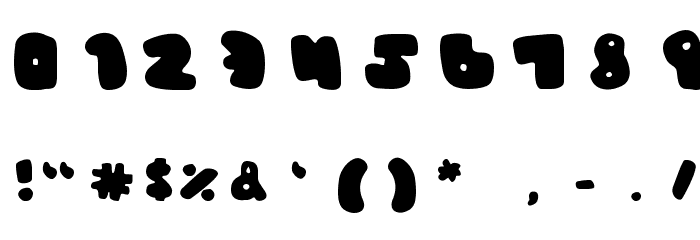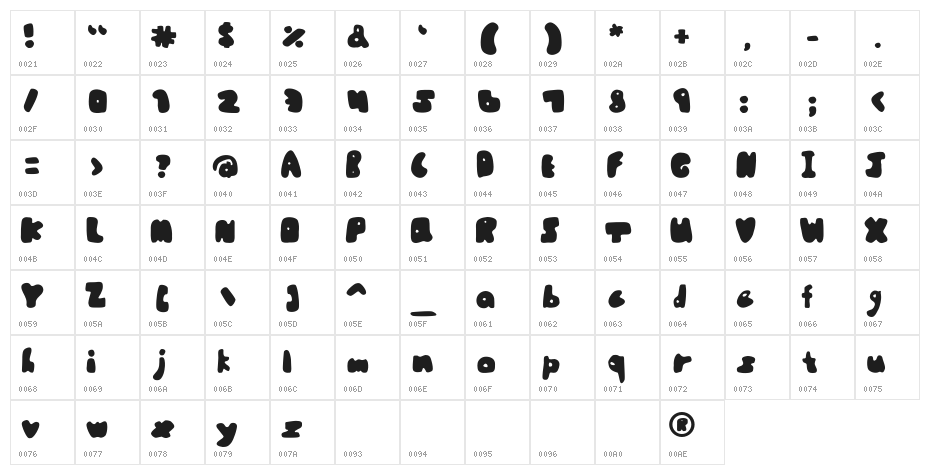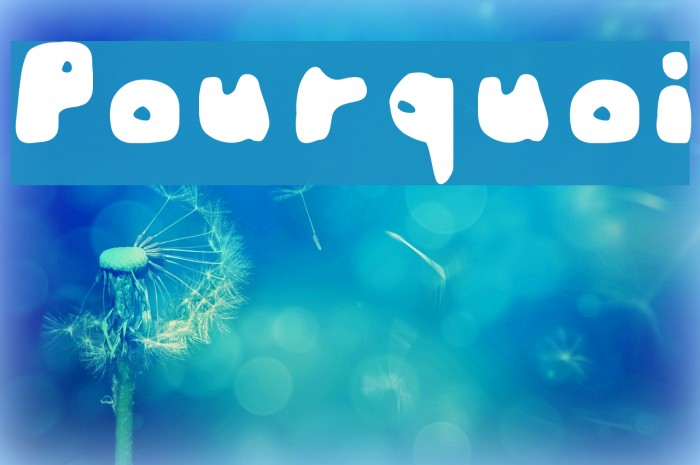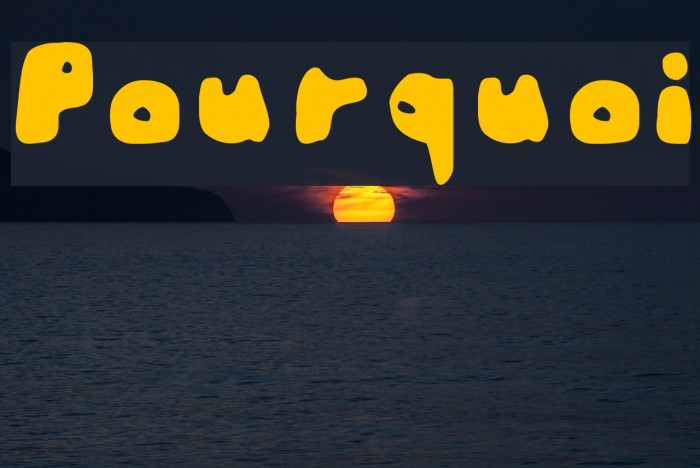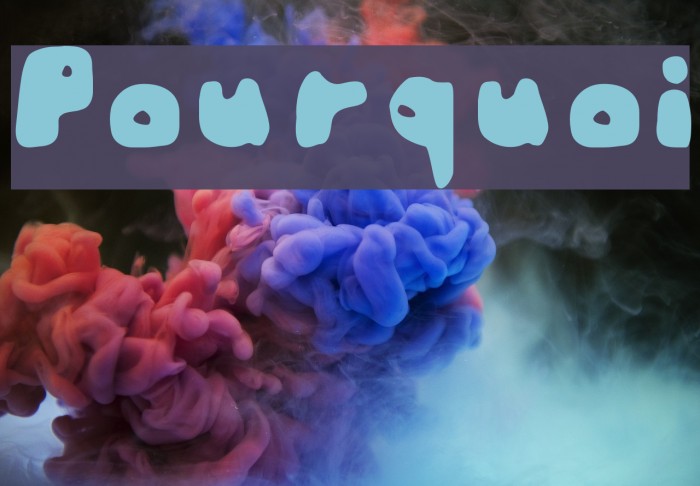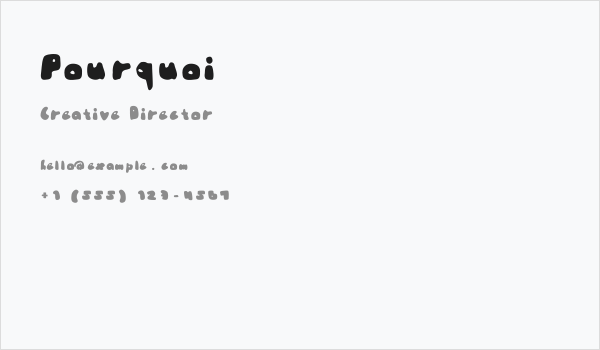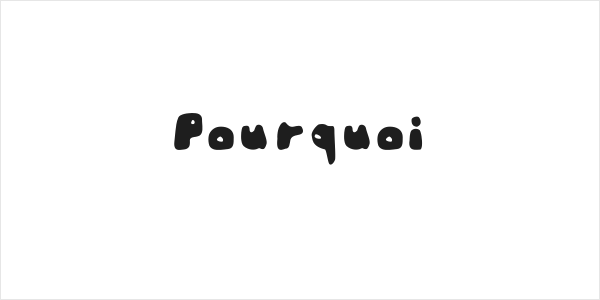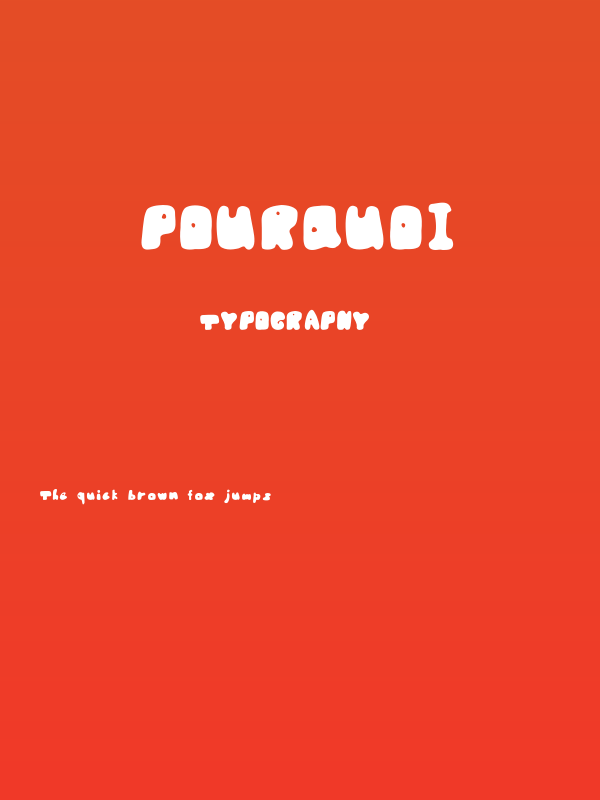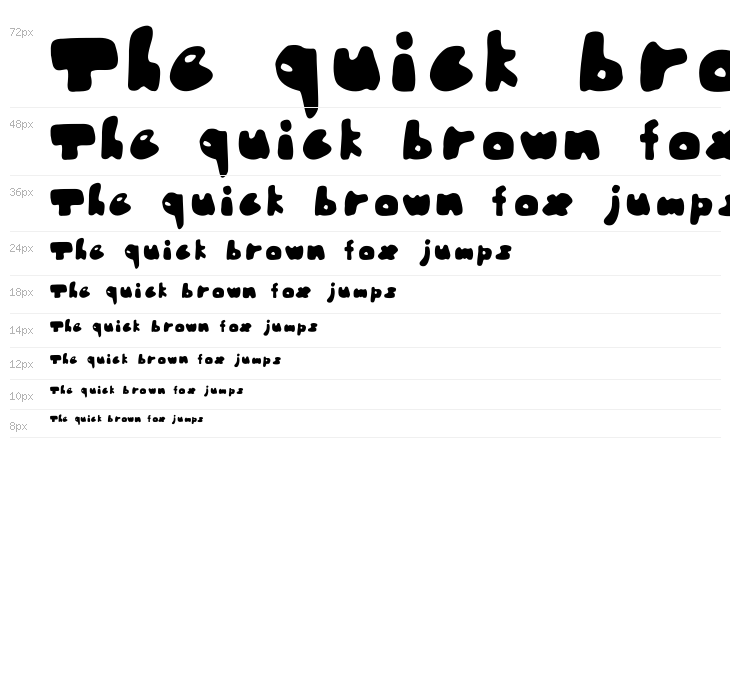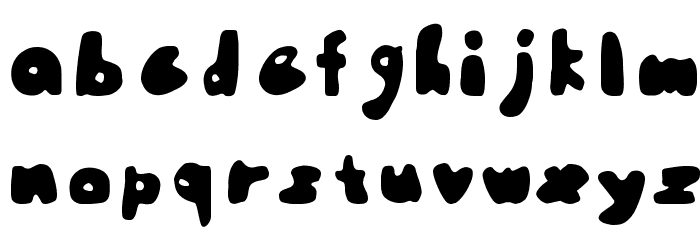
Pourquoi Font
Pourquoi Description
This playful and bold font features thick, rounded characters that give off a whimsical and friendly vibe. The letters are irregular in shape, adding a hand-drawn, organic feel to the text. The font maintains a consistent weight throughout, with no sharp edges or serifs, making it approachable and fun. Its unique style is reminiscent of bubble letters, often used in children's books or playful branding. The numbers and special characters follow the same design principles, ensuring a cohesive look across all text elements. The font's overall appearance is casual and informal, perfect for projects that require a touch of creativity and fun.
POURQUOI UPPERCASE
POURQUOI LOWERCASE
POURQUOI OTHER CHARS